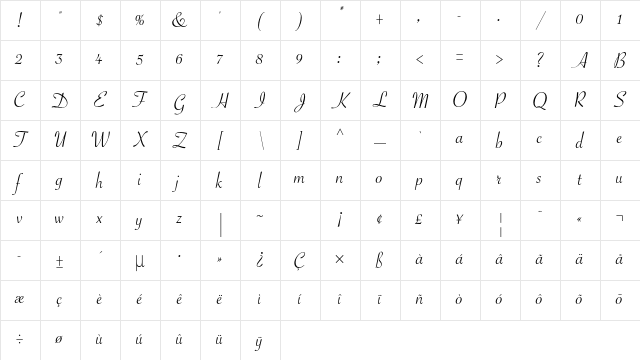
Savoye Std Regular
Designer: Alan Meeks
Complete Savoye Std Regular glyph index. Displaying only characters natively supported by Savoye Std Regular font.
Design Context for Savoye Std
Savoye Std is a composed and adaptable typeface that performs quietly and consistently across a wide range of design contexts.